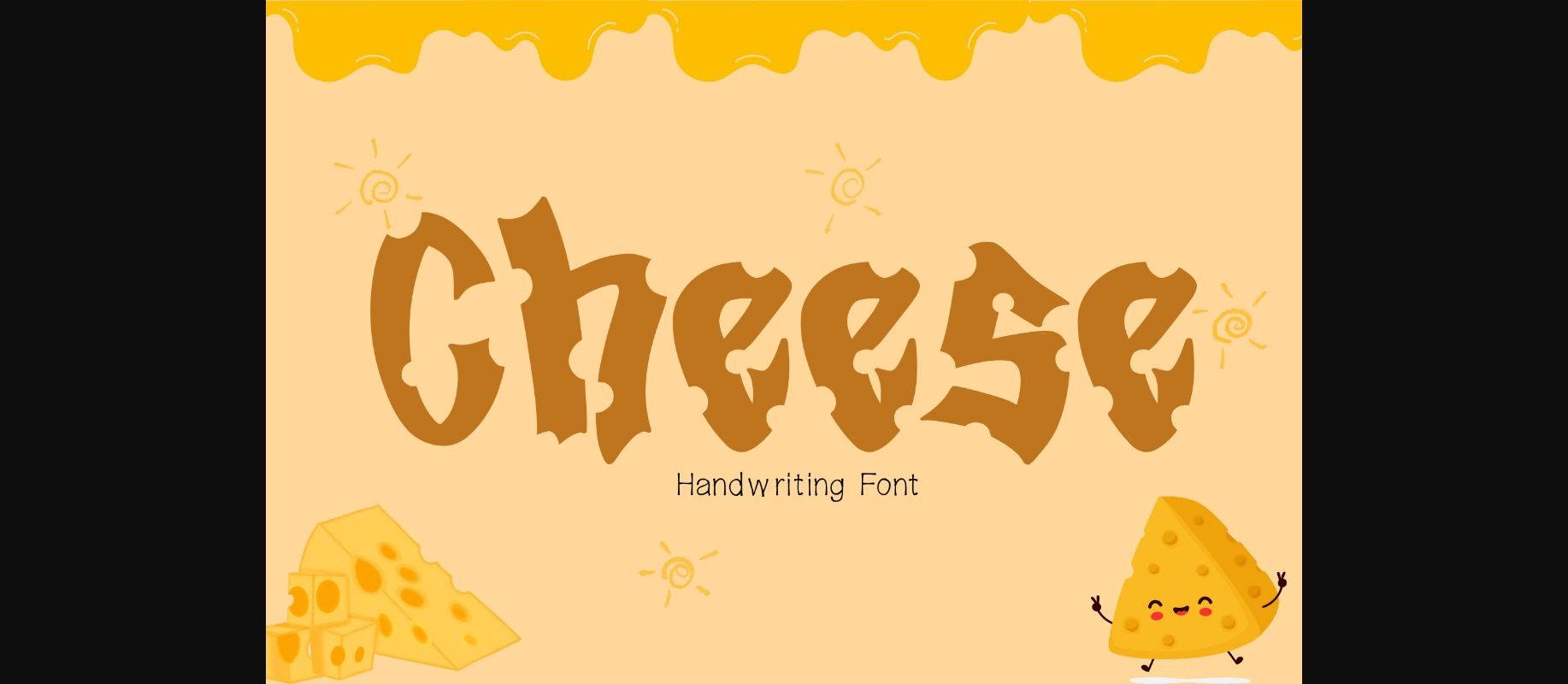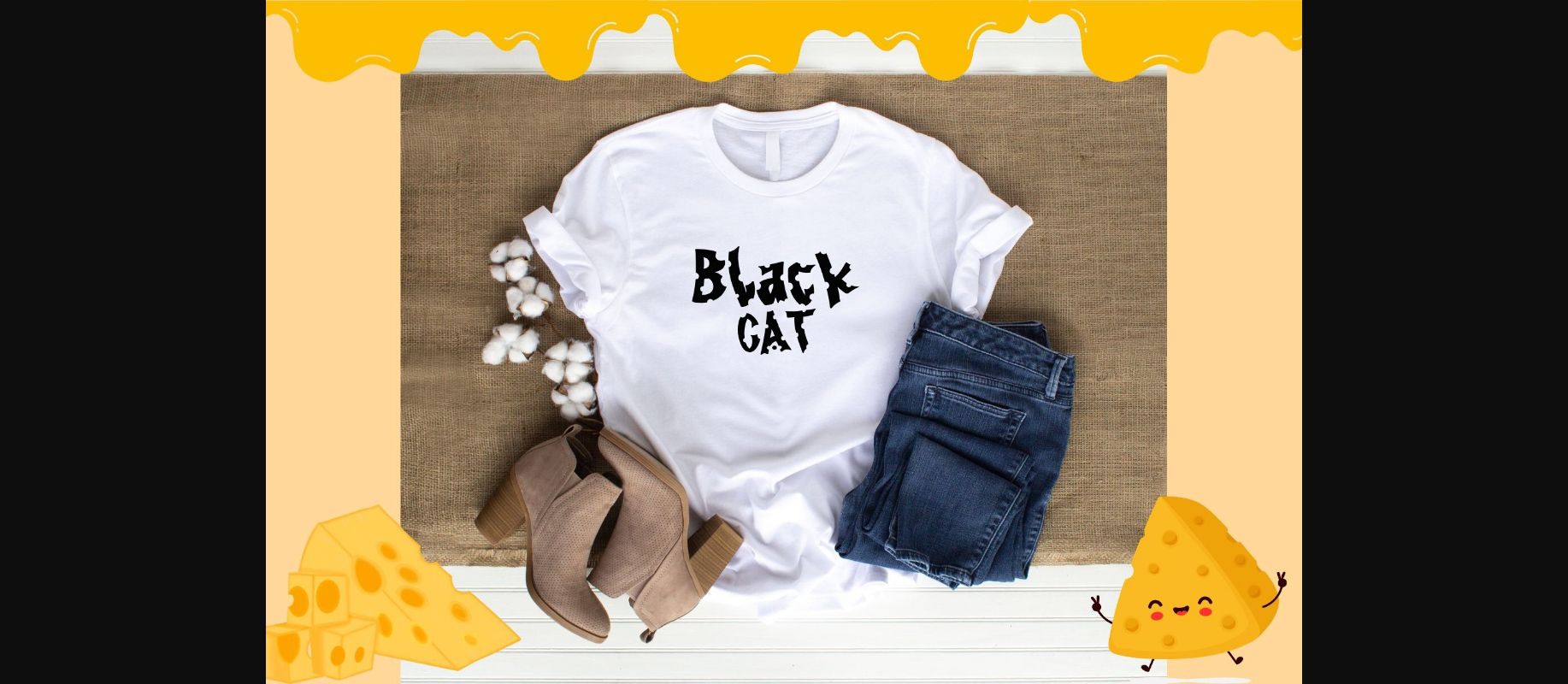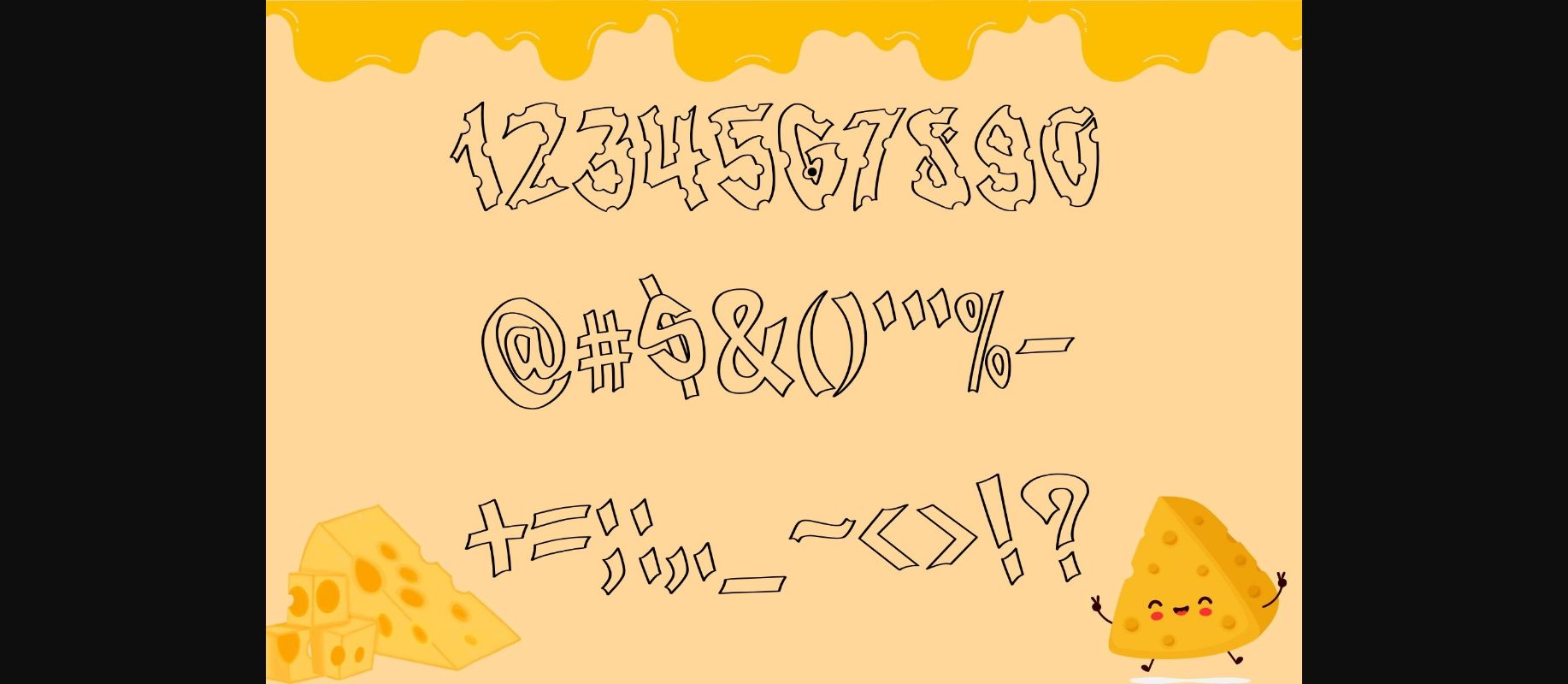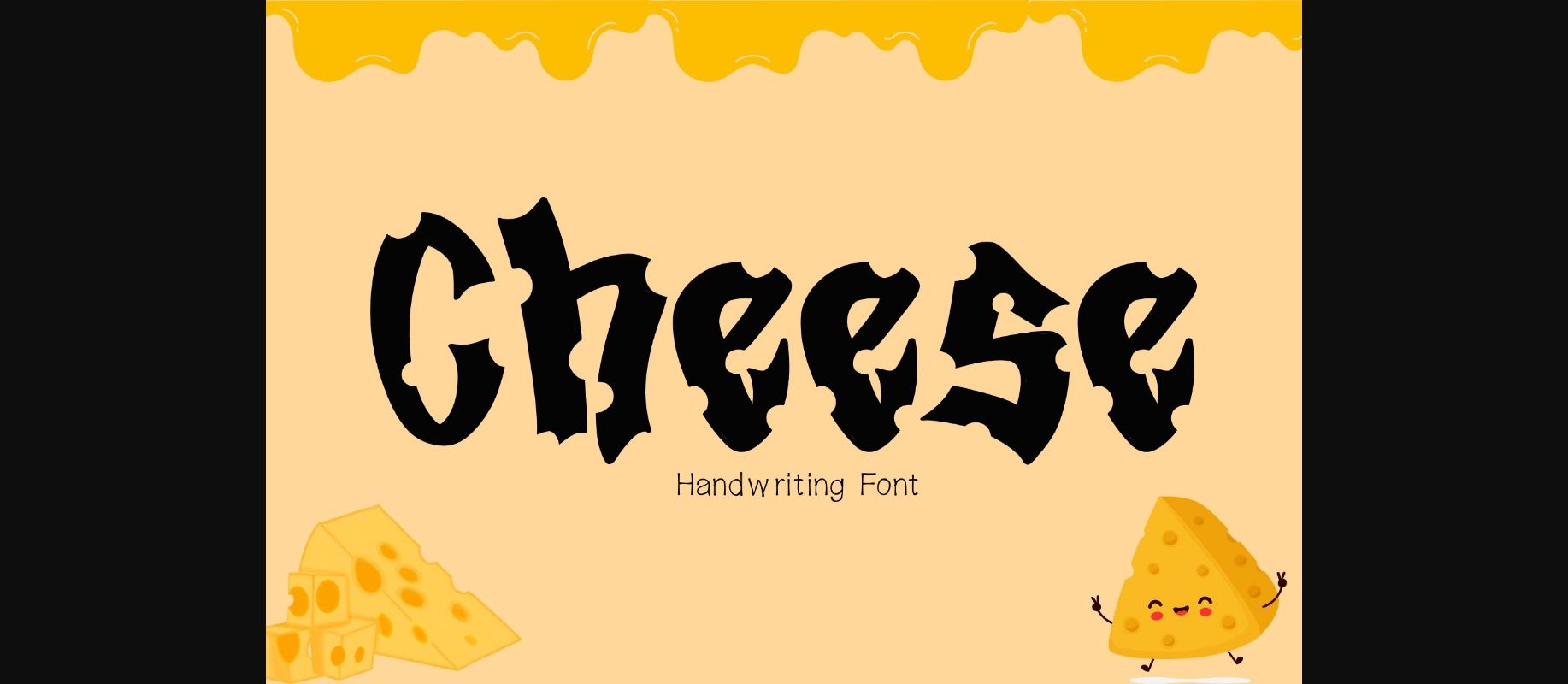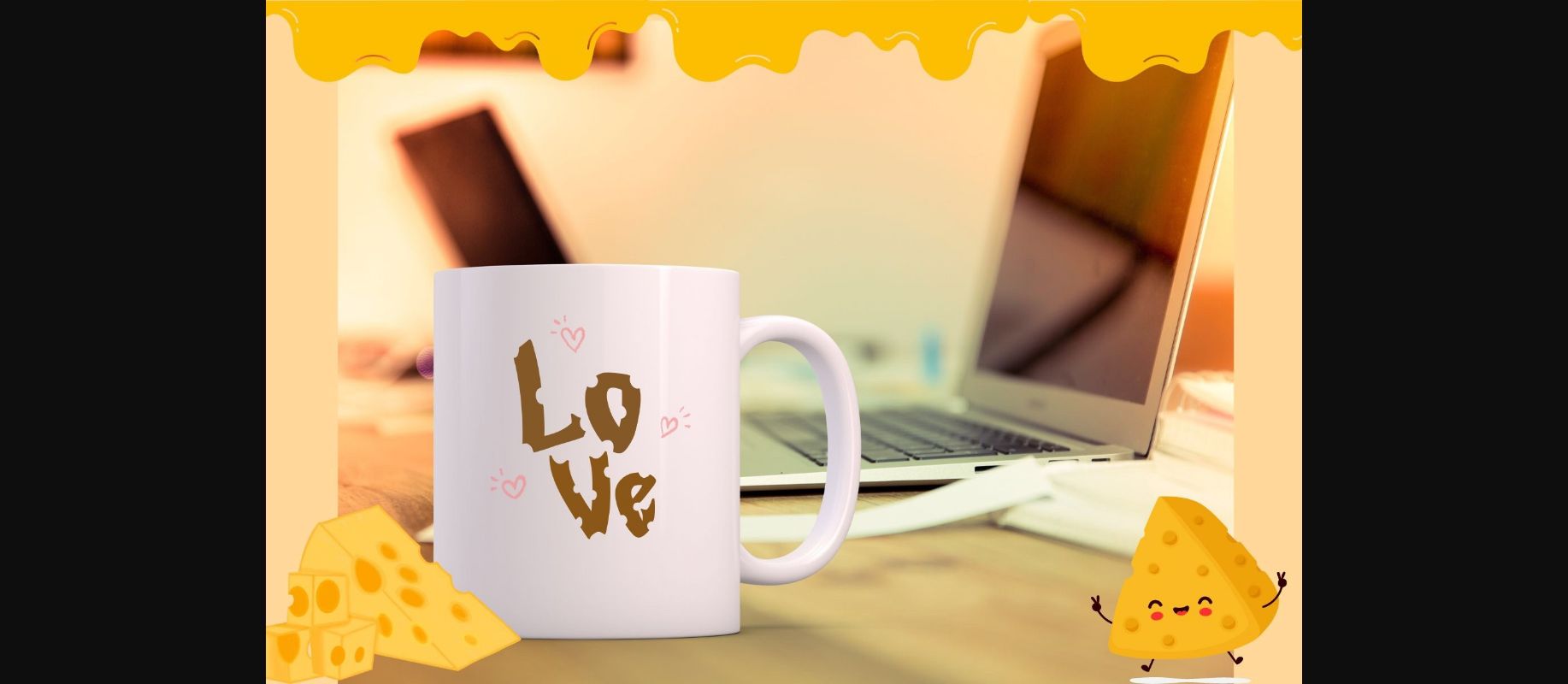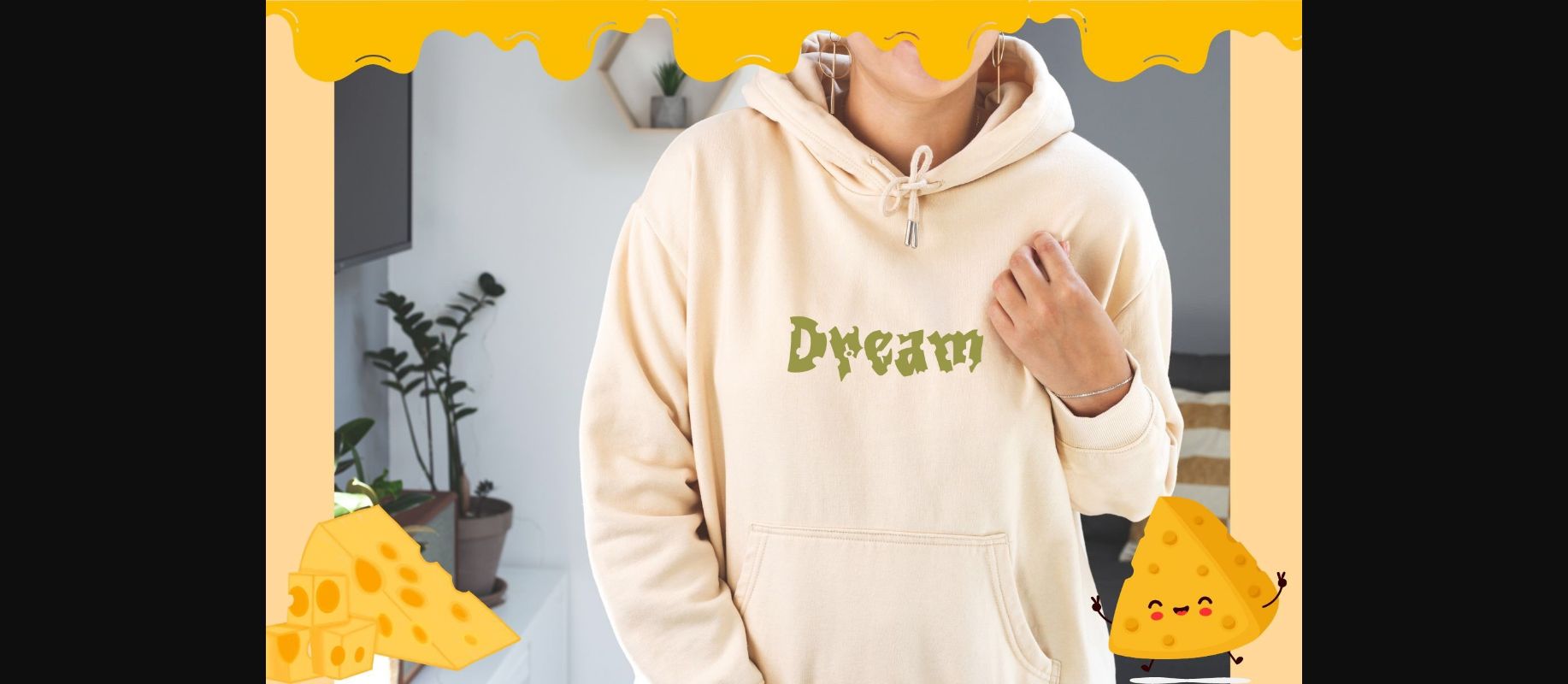
About Cheese Font
Cheese is a font that will help you create fun and playful designs and will look good on a variety of branding and packaging projects. This cheese font features the perfect combination of fun and creativity to instantly grab anyone’s attention.